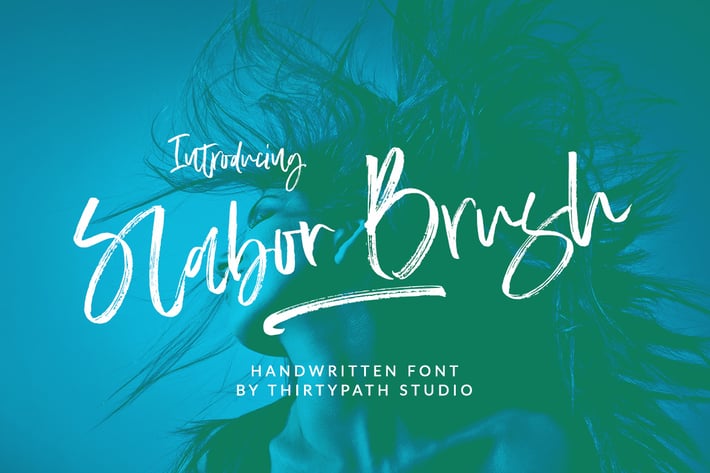
Slabor Brush Font
Hi all...!! Slabor Brush Font is a hand brush products with extras. The style of handwriting and irregular but still elegant, and you will enjoy to use this font style.
Slabor Brush Font has standard ligatures included - to give the font a more natural, scripted look when you have any double letters in your design. It also has multilingual support with accented characters for international users.
Slabor Brush Font is perfect for branding projects, homeware designs, product packaging - or simply as a stylish text overlay to any background image.